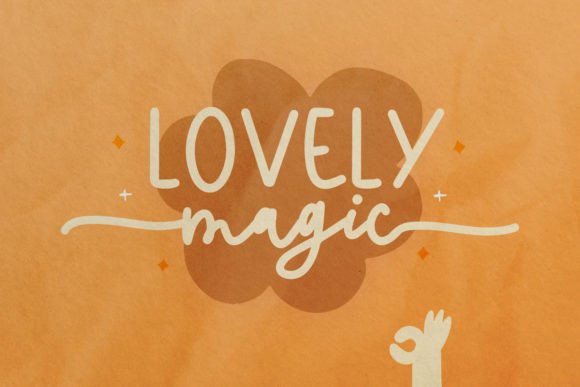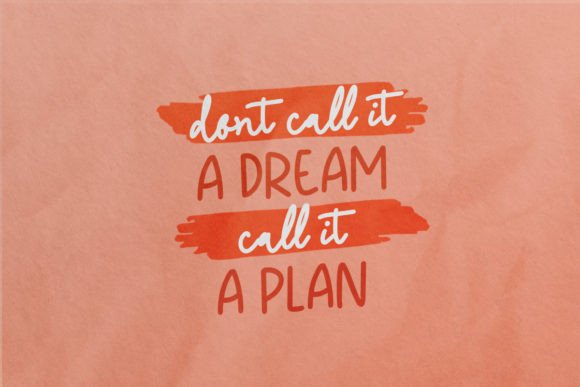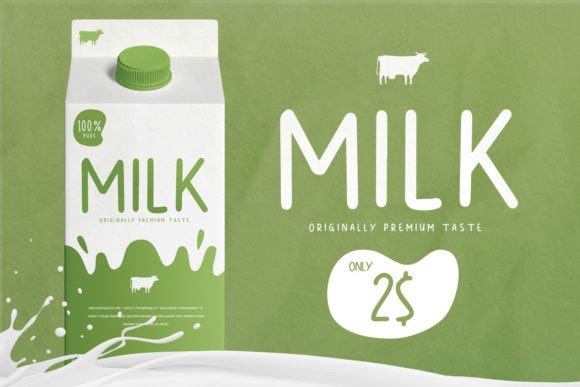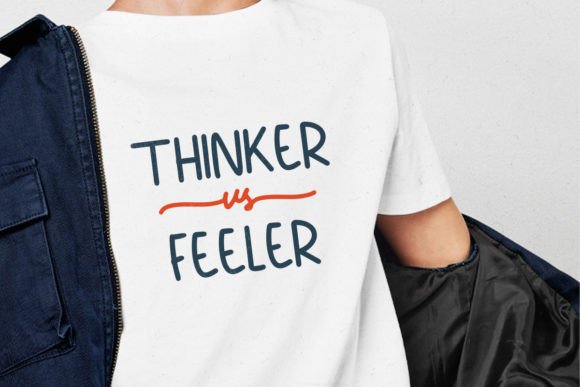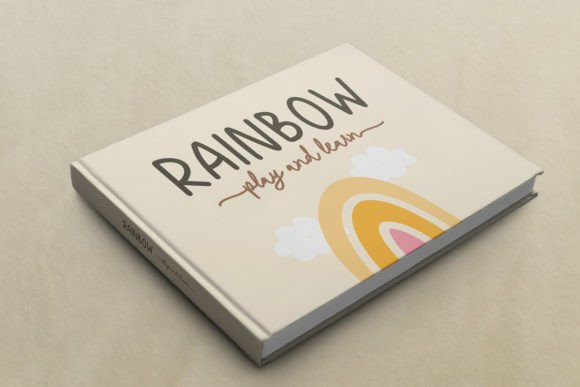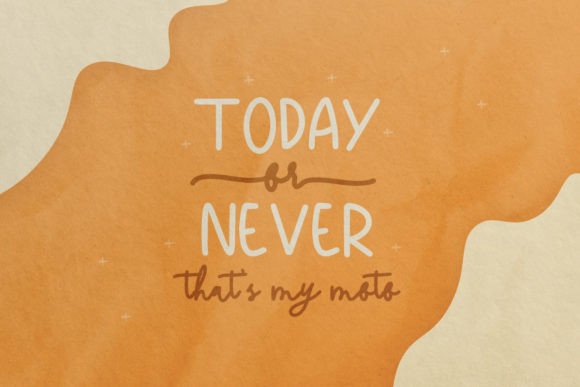
Introduction to Lovely Magic Font
Lovely Magic is a cute handwritten font that perfectly combines script with sans serif characters.
You can use this font for any purpose, especially for quotes, book covers, and children’s designs With a special initial and terminal swash, this font will make your project more interesting.